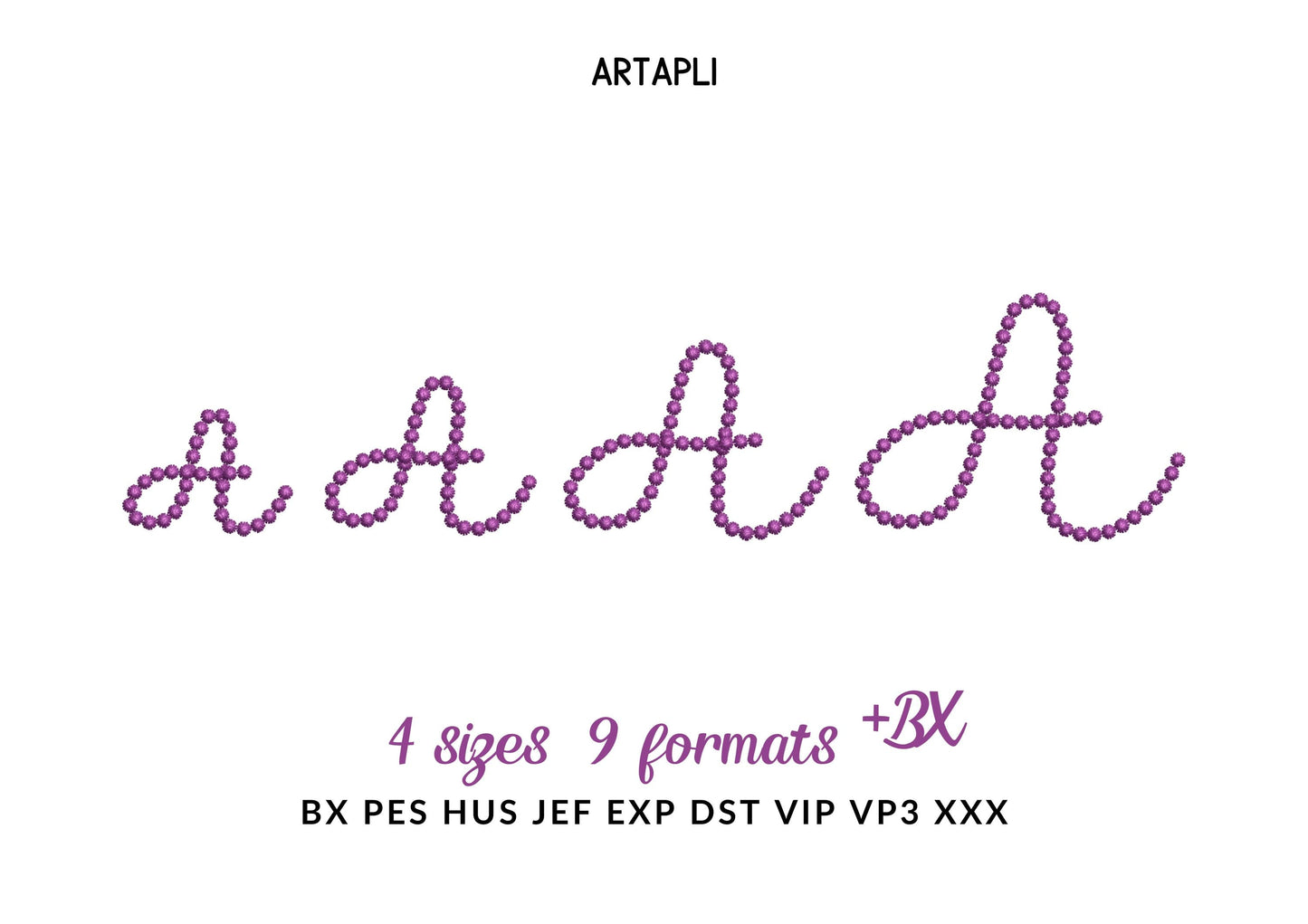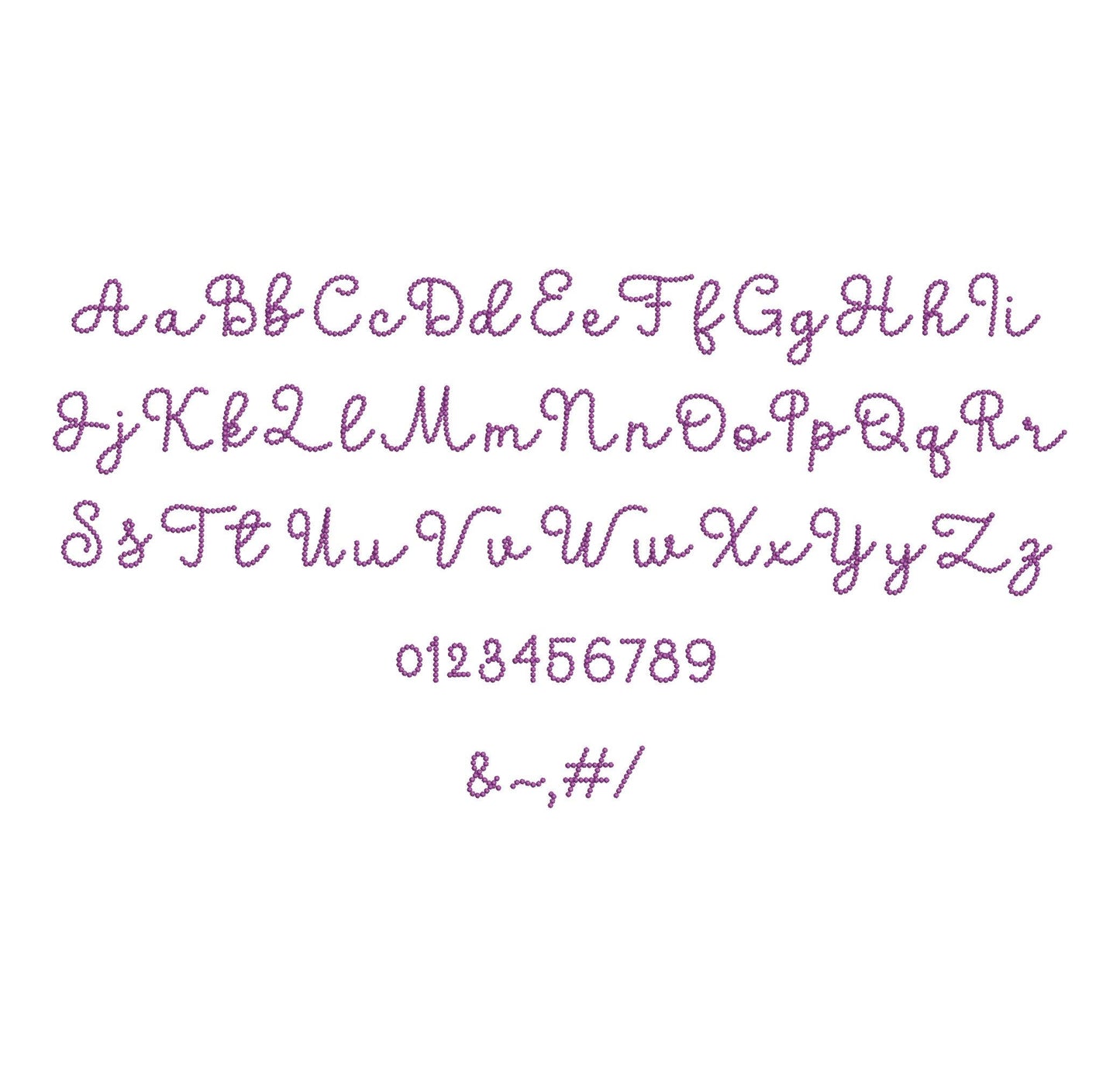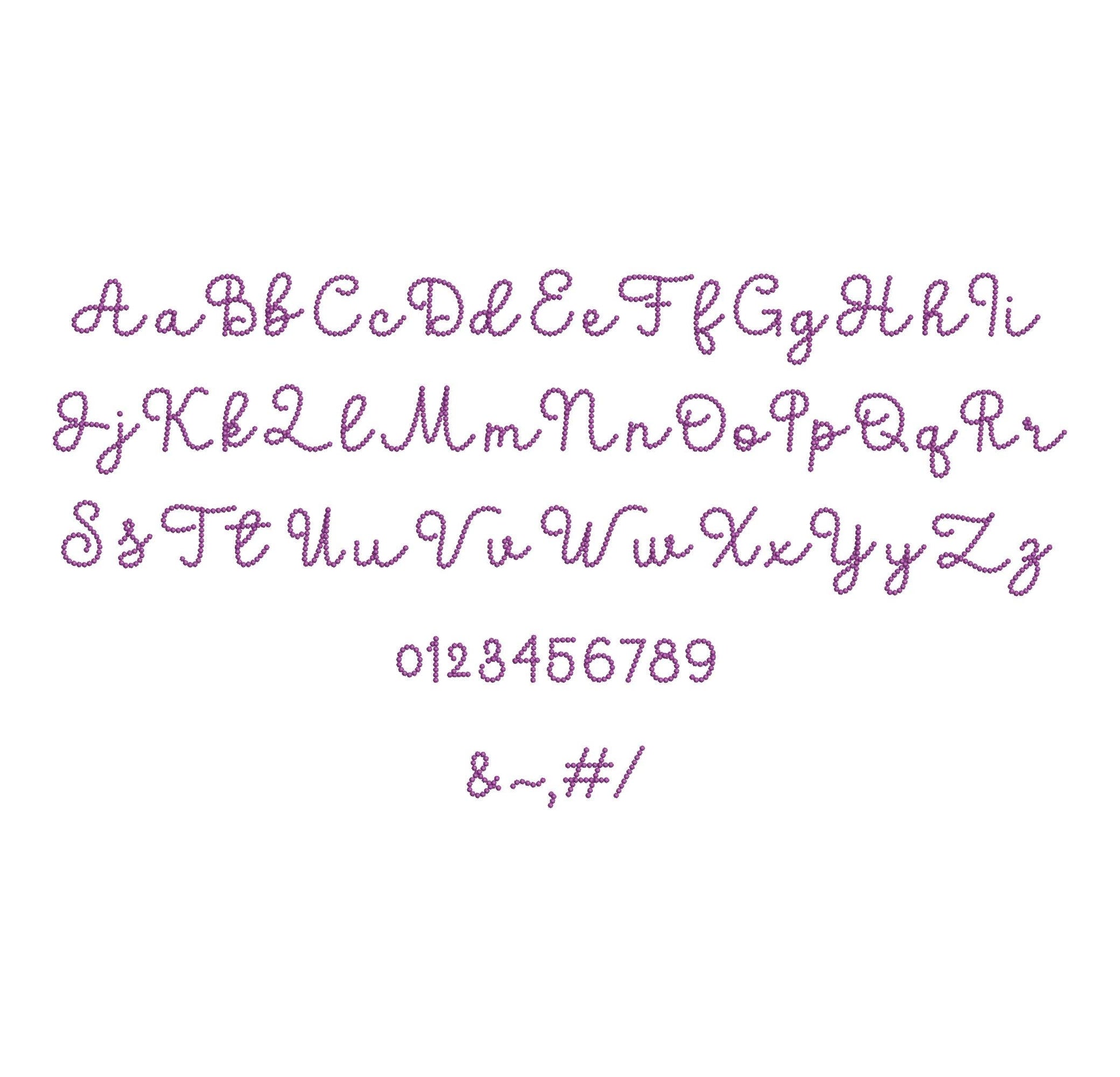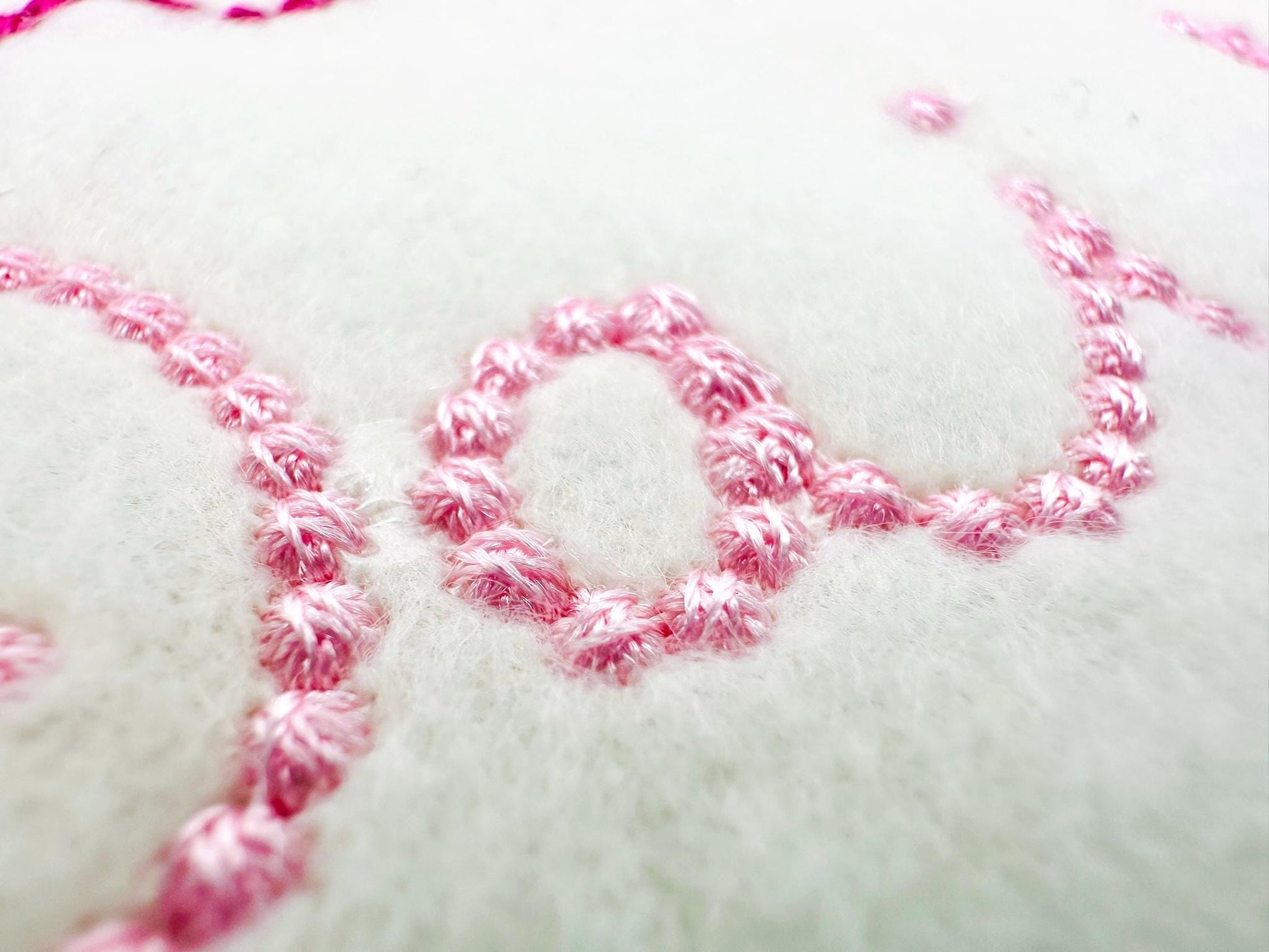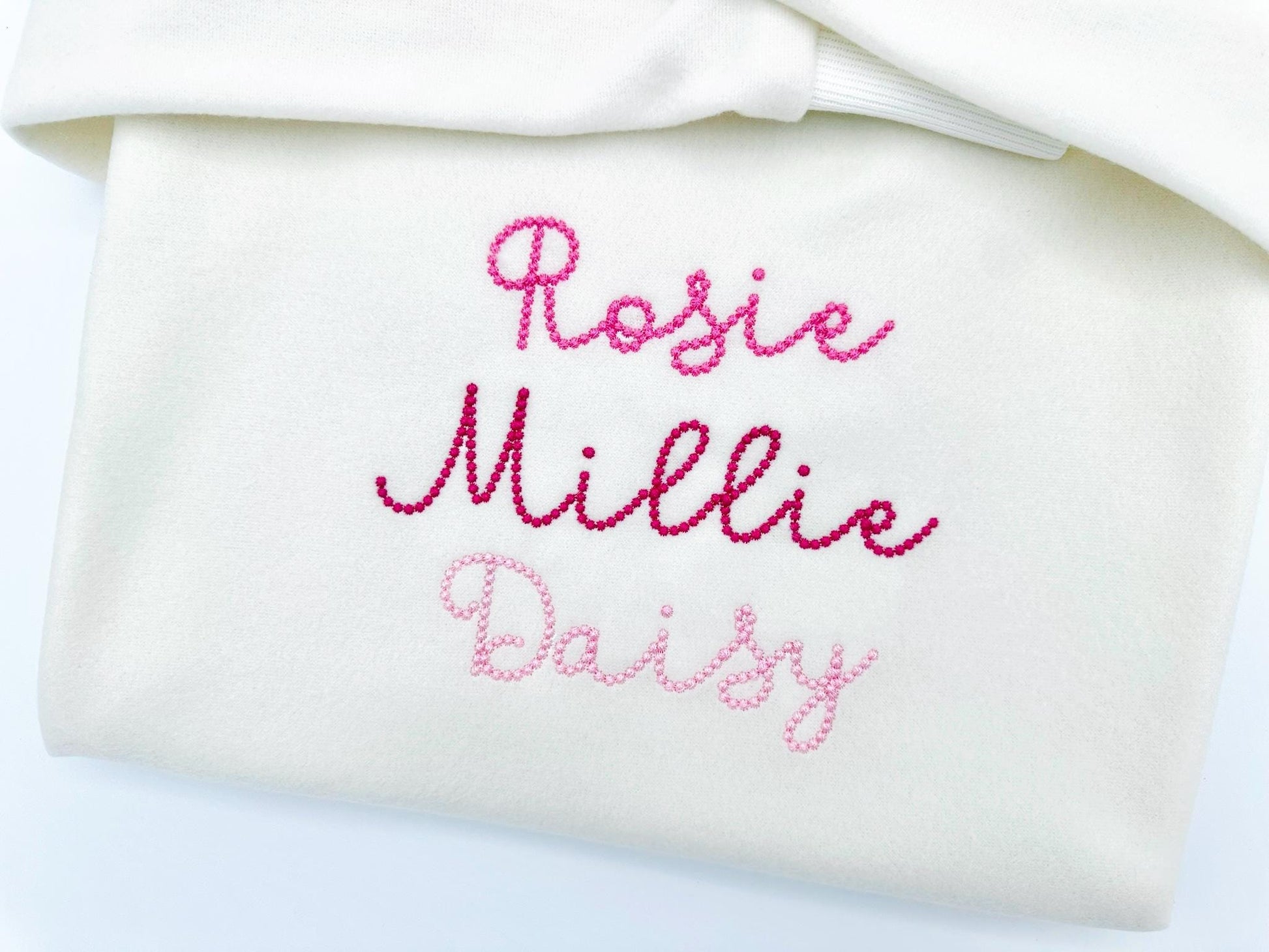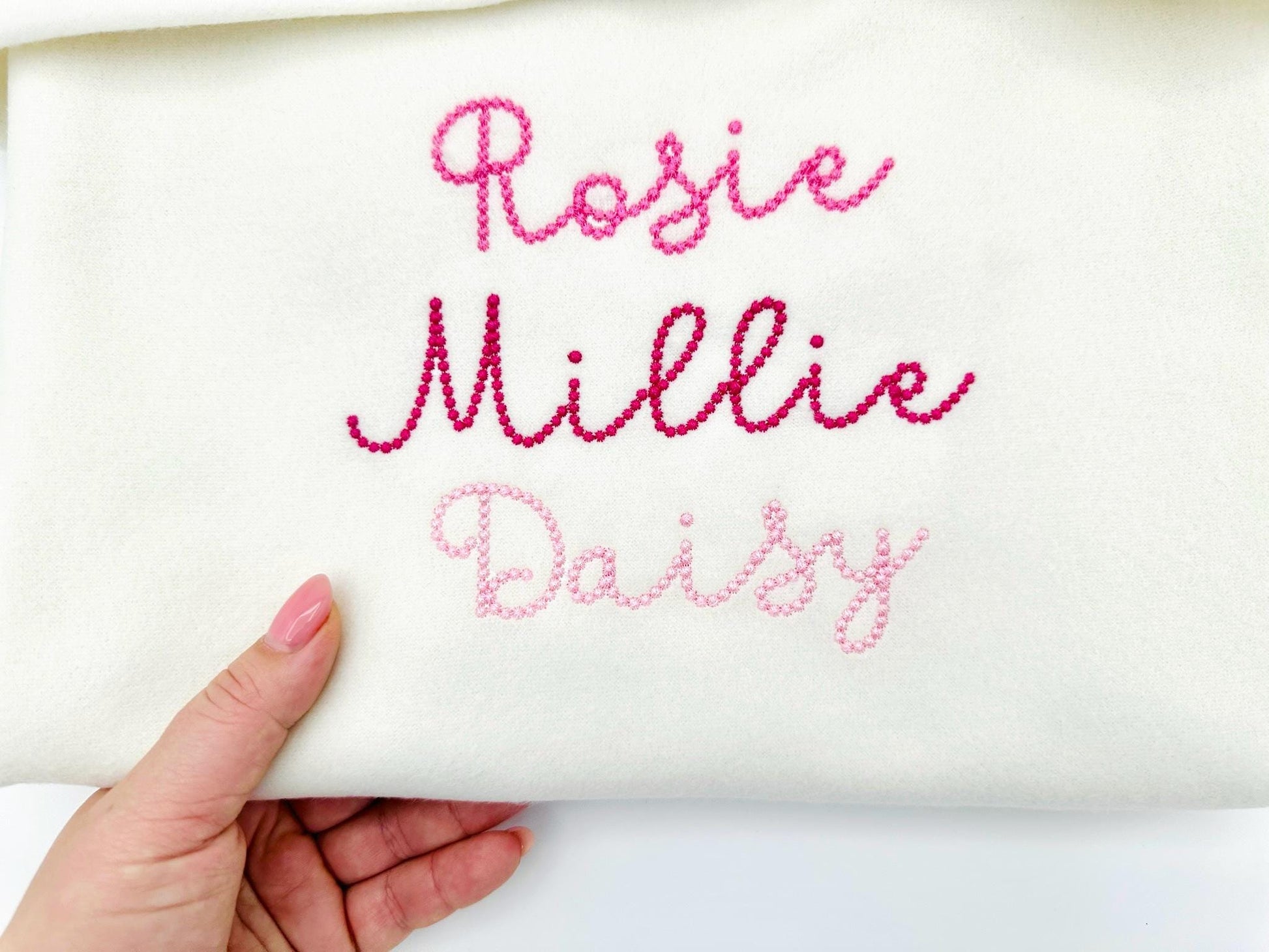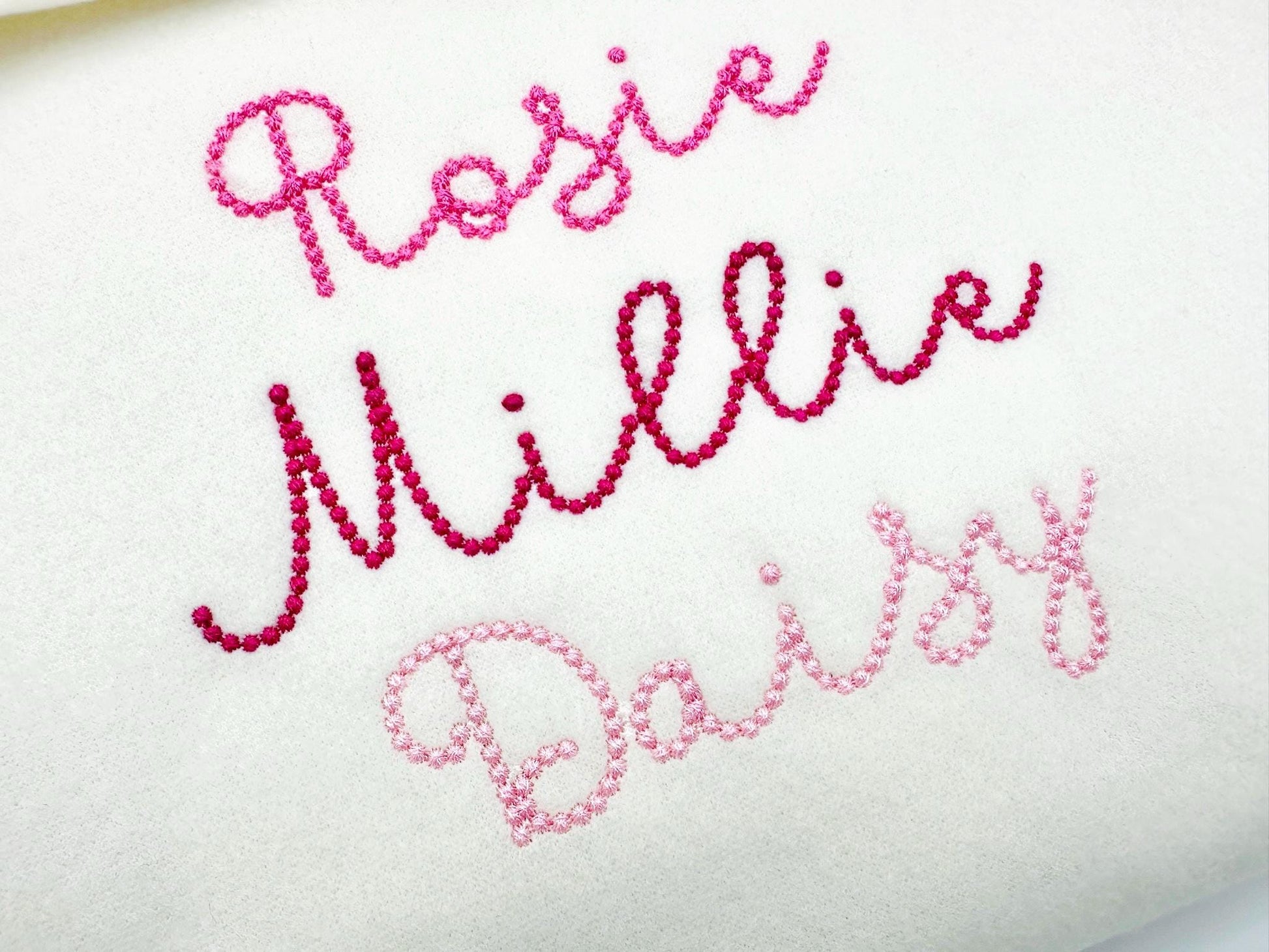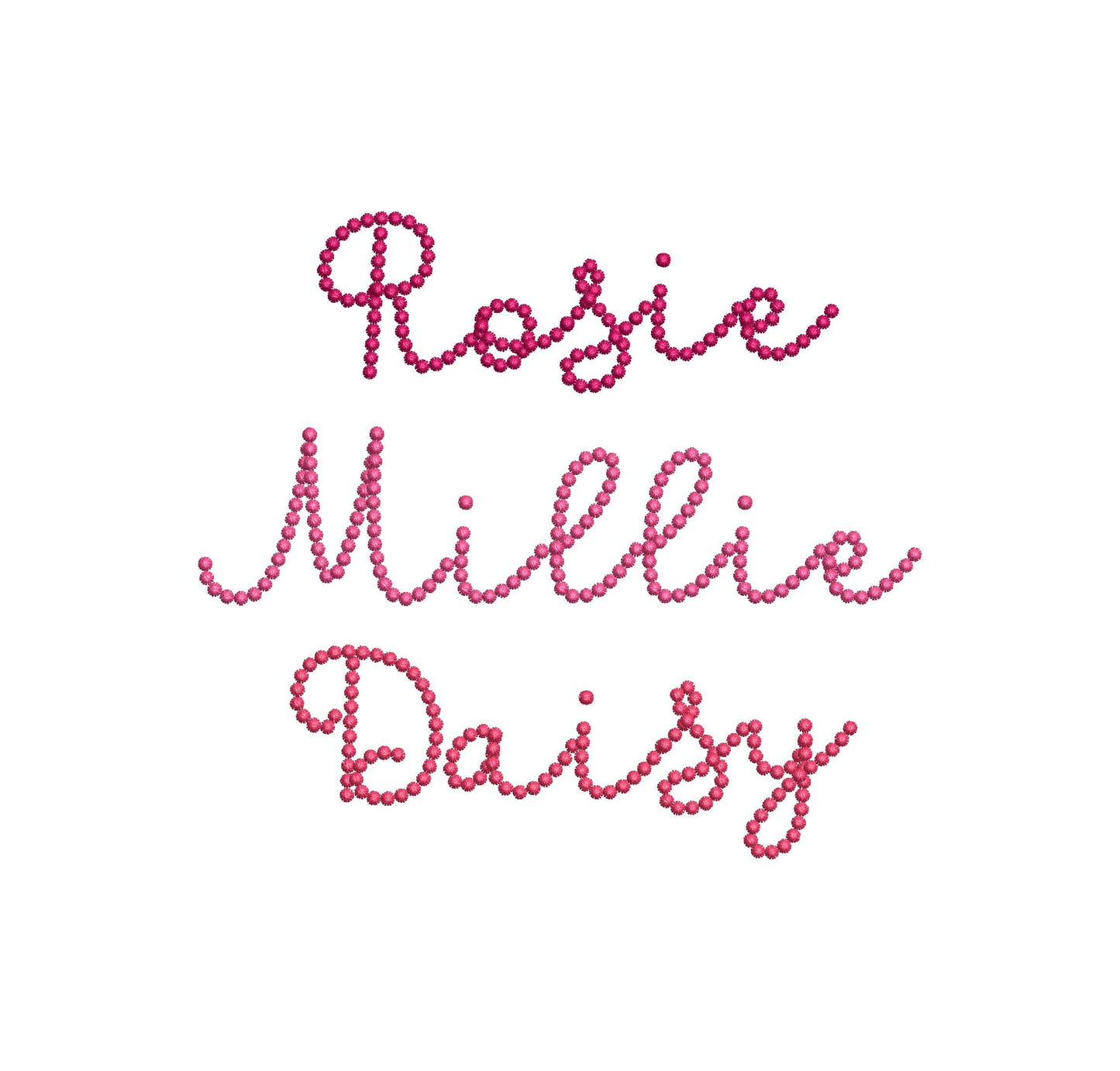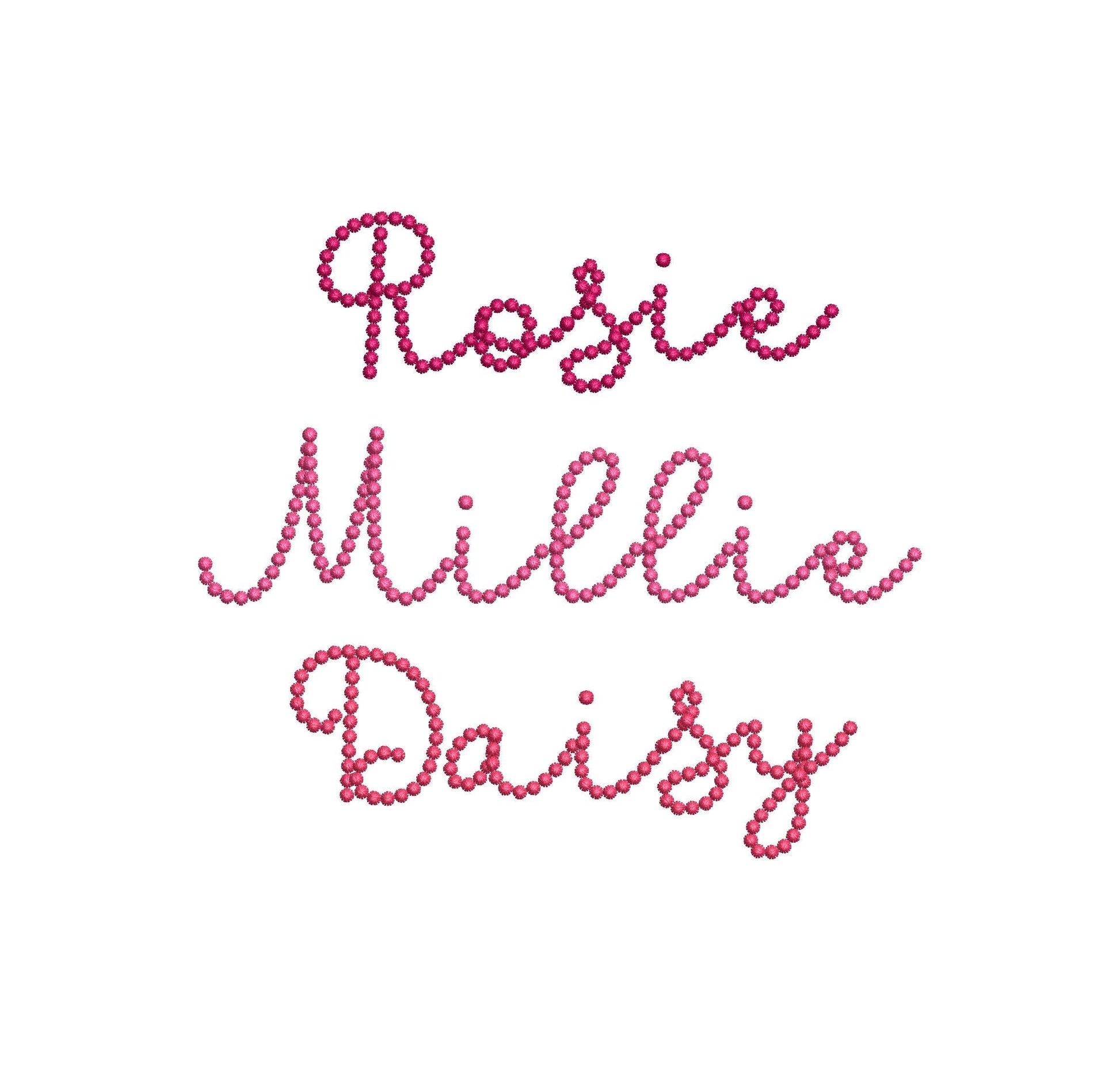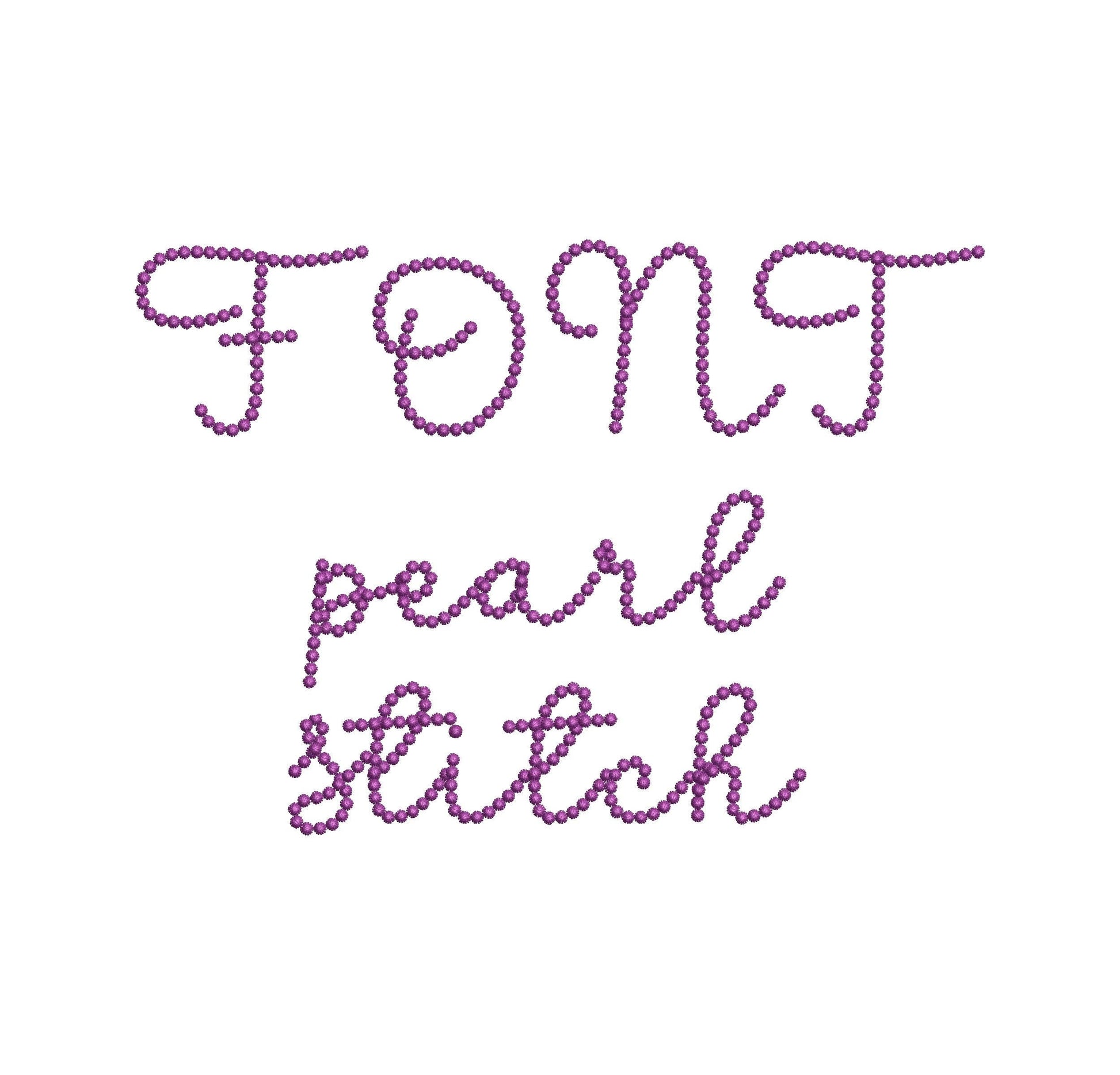
Or click to open the linkA bubbly handwritten script font in a pearl stitch. Pretty for girls' names, monograms and delicate gifts.
The letters come in four sizes: 1, 1.3, 1.6 and 2 inches. A pearl stitch gives the rounded script a soft, beaded look. Includes uppercase and lowercase letters A to Z, numbers 0 to 9 and punctuation.